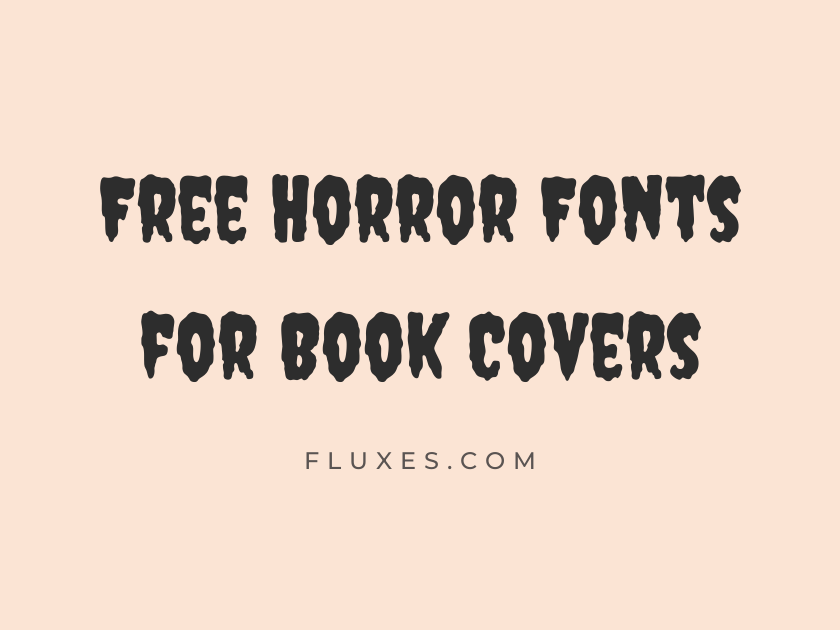
61 Best Free Horror Fonts for Book Covers
Horror publishing runs on typography that does half the storytelling before a reader opens the book. A cover font has to signal dread, decay, gothic romance, or slasher-poster camp in the half-second someone scrolls past it, and that is exactly where free horror fonts on Google Fonts earn their keep. Whether the project calls for a Victorian ghost story, a splatter-pulp paperback, or a found-footage case file, there is a genuinely strong, license-free option waiting below, and every one of them can be downloaded and dropped into a cover mockup in minutes.
This roundup leans into the full range of the genre: dripping horror-movie display faces, blackletter and gothic serifs, distressed pulp and western wood type, creepy handwriting, and a few elegant literary serifs for slow-burn dread rather than gore.
1. Creepster
Something is waiting inside these pages
This is the font most people picture the second someone says “Halloween,” and for good reason: the drippy, slightly melted letterforms read as instant horror-comic shorthand. It works best loud and large on a title, since the dripping details turn to mush at small sizes.
2. Nosifer
The blood never quite washes out
Nosifer
Nosifer takes the dripping-blood concept further than almost anything else on Google Fonts, with double-drip strokes that look genuinely gruesome rather than cartoonish. Save it for short, punchy titles on splatter or slasher covers; a full sentence in this face becomes unreadable fast.
3. Butcherman
He kept the meat hooks sharpened
Rough, hacked edges and uneven strokes give Butcherman the feel of a hand-lettered sign nailed to a slaughterhouse door. It pairs naturally with grungy photo-manipulation covers for backwoods or cannibal horror.
4. Eater
It came back from the grave hungry
Eater
Jagged, torn-looking letters make Eater feel like it survived being chewed on, which is exactly the pitch for zombie and creature-feature titles. Its bite marks and rough edges carry real personality at poster size but get noisy in a paragraph.
5. Vampiro One
She only feeds after midnight
Vampiro One
Rounded yet sinister, Vampiro One has just enough curve to feel playful without losing its bite, making it a solid choice for vampire fiction that leans gothic-romance rather than gore. It sits comfortably on both middle-grade spooky covers and adult supernatural romance.
6. Fascinate
Eyes are watching from the dark
Little dot-eye details hidden in the letterforms give Fascinate an unsettling, always-watching quality that suits psychological horror and creature covers alike. A companion style, Fascinate Inline, offers the same eerie geometry with a hollow, engraved feel for lighter backgrounds.
7. Metal Mania
The band played until the screaming stopped
Metal Mania
Thin, jagged, and unmistakably metal-adjacent, this face suits horror titles with a heavy-music or headbanger subculture angle. It reads best in all caps and short bursts rather than long titles.
8. New Rocker
The crypt door groaned open again
New Rocker
Part blackletter, part biker-jacket patch, New Rocker gives covers a grungy, tattoo-parlor edge that softer gothic serifs cannot match. It is a strong pick for horror with a punk or metal sensibility.
9. UnifrakturMaguntia
Beware the forest after dark
A proper German blackletter revival, this is the font that instantly says “old world curse” or “cursed manuscript” the moment it appears on a cover. It carries centuries of gothic-horror association built right into the letterforms, and it pairs beautifully with a restrained, modern sans for the author name and back-cover copy.
10. UnifrakturCook
The abbey has kept its secret
UnifrakturCook
Heavier and denser than UnifrakturMaguntia, this bold blackletter suits covers that need gothic weight without fine, fragile hairlines. It holds up well on matte paperback stock where thinner blackletter faces can look scratchy.
11. Pirata One
No ship returns from that harbor
Pirata One softens blackletter’s usual severity into something more theatrical, which makes it a favorite for haunted-ship and cursed-treasure horror. It still reads clearly at smaller sizes, unlike many of its gothic cousins.
12. Grenze Gotisch
Sign your name in blood, please
Grenze Gotisch
A variable blackletter that ranges from delicate to genuinely oppressive at its heaviest weights, Grenze Gotisch gives designers unusual flexibility within one gothic family. Pull it toward the heavier end for cover titles and dial it back for interior chapter headers.
13. MedievalSharp
An ancient evil stirs beneath the church
MedievalSharp
Angular and hand-drawn, MedievalSharp feels less funereal than pure blackletter and more like it was inked by a monk with something to hide. It is a dependable choice for dark-fantasy horror crossovers.
14. Metamorphous
The ritual required a full moon
Metamorphous
Metamorphous carries an occult, ceremonial-magic weight thanks to its ornamental serifs and dense strokes. It suits witchcraft and ritual-horror covers particularly well, and it stays legible even at moderate sizes.
15. Almendra
The manor had not been opened in years
Almendra
Almendra’s calligraphic curves give it a candlelit, Victorian-manuscript quality that is more haunted-house than horror-movie poster. It comes with matching small-caps and display styles, so a whole gothic type system can be built from one family.
16. Almendra SC
ENTER AT YOUR OWN RISK
Almendra SC
The small-caps companion to Almendra works beautifully for a restrained gothic subtitle or author credit beneath a louder display title. It keeps the family’s Victorian character without competing for attention.
17. Almendra Display
THE DEAD DO NOT REST QUIETLY
Almendra Display
This is the boldest member of the Almendra trio, with thick, inky strokes suited to a cover’s main title rather than body text. It reads as gothic without tipping into full horror-movie melodrama, useful for literary or Southern Gothic horror.
18. IM Fell English
A confession written by candlelight
IM Fell English
Modeled on 18th-century printing types, IM Fell English brings a genuinely old, slightly worn feel that suits epistolary horror, ghost stories, and anything pitched as a “found manuscript.” The deliberately irregular letterforms mimic the imperfections of metal type.
19. IM Fell English SC
A WARNING TO ALL WHO ENTER
IM Fell English SC
The small-caps cut of IM Fell English is ideal for cover taglines or chapter openers that need old-book gravity without shouting. It pairs naturally with its roman sibling for a cohesive antique-horror look.
20. IM Fell DW Pica
The diary ends mid-sentence
IM Fell DW Pica
Slightly narrower and denser than IM Fell English, this cut suits longer subtitles on period horror covers where space is tight. Its antique character makes it a natural fit for Victorian and Edwardian ghost fiction.
21. IM Fell Double Pica
Something followed her home from the churchyard
IM Fell Double Pica
A sturdier, more substantial member of the IM Fell family, this face holds up well as a secondary display type beneath a louder gothic headline. It never loses the antique-print texture that makes the whole family so useful for period horror.
22. IM Fell Great Primer
Every ghost story begins with a name
IM Fell Great Primer
The most generously spaced of the IM Fell cuts, this one is a strong choice when a cover needs old-book atmosphere at a slightly larger, more legible size. It reads calmer and more literary than the family’s denser siblings.
23. Uncial Antiqua
The monks sealed the tomb at dawn
Uncial Antiqua
Uncial Antiqua’s rounded, illuminated-manuscript letterforms evoke medieval religious horror and cursed-relic plots almost automatically. It is a strong fit for anything involving ancient texts, abbeys, or forbidden scripture.
24. Fondamento
She copied the spell exactly as written
Fondamento
This handwritten blackletter hybrid feels like it was scratched into a spellbook rather than typeset, which makes it useful for grimoire-style horror covers and interior ephemera. It is legible enough for short passages, unlike heavier gothic display faces.
25. Cinzel Decorative
THE CROWN OF THE DAMNED
Ornamented, carved-in-stone capitals give Cinzel Decorative a ceremonial, ancient-curse quality that suits horror with a classical or archaeological angle. It is a title font first and foremost; save the plain Cinzel below for anything that needs to run longer.
26. Cinzel
An old evil, patiently waiting
The restrained sibling of Cinzel Decorative, this Roman-inspired serif brings gravity and a sense of ancient dread without the flourishes. It pairs elegantly with Cormorant Garamond below for a full literary-horror type system.
27. Miltonian
Carved above the mausoleum door
Miltonian
Engraved, Victorian-stencil letterforms make Miltonian feel like it belongs on a cemetery gate rather than a screen, which is precisely the appeal for gothic horror titling. It has a formal, almost governmental weight that suits asylum and institution-horror covers too.
28. Miltonian Tattoo
Marked forever by what she saw
Miltonian Tattoo
A rougher, more worn cousin of Miltonian, this cut adds texture that suggests age and damage rather than clean engraving. It works well on covers built around distressed photography or scratched film textures.
29. Special Elite
Case file 13: do not open
Every letter looks like it was struck from a manual typewriter with a worn ribbon, which makes Special Elite the obvious choice for found-footage, case-file, and epistolary horror. It also reads cleanly at body-text sizes, so it can carry cover copy as well as the title.
30. Vast Shadow
Its shadow fell across the porch
The name says it all: built-in shading gives this slab serif a dramatic, dimensional presence without any extra effects added in design software. It suits bold, single-word horror titles that need to dominate a cover.
31. Rye
The town kept its darkest secret
A western-inspired slab with just enough roughness to feel weathered rather than clean, Rye is a natural pick for backwoods, frontier, or folk-horror covers. It carries a wanted-poster energy that suits horror with a rural American setting.
32. Sancreek
Nobody leaves this town alive
Sancreek’s chiseled wood-type look brings the same frontier grit as Rye but with heavier, blockier strokes. It reads as tough and weathered rather than delicate, ideal for horror westerns and desert-set slashers.
33. Frijole
The carnival never really closed
Frijole
Chunky and slightly cartoonish, Frijole has a hand-carved circus-sign quality that suits creepy-carnival and killer-clown horror. It leans more playful than menacing, so it works best paired with unsettling imagery to carry the tone.
34. Jolly Lodger
Step right up, if you dare
Jolly Lodger
This Victorian-fairground display face brings sideshow theatrics to a cover, useful for horror built around traveling carnivals, freak shows, or cursed amusement parks. Its exaggerated flourishes make it a title-only font rather than one for longer copy.
35. Ewert
Torn from the pages of her diary
Ewert
Bold, rounded letterforms with a slightly jagged, torn-paper edge give Ewert a scrapbook-horror feel that suits diary and journal-style covers. It stays surprisingly legible for a face this stylized.
36. Griffy
The fortune teller warned her twice
Griffy
Quirky, old-fashioned, and a little theatrical, Griffy suits horror with a vintage carnival or Victorian-oddity flavor rather than anything overtly bloody. It is best used sparingly, as a subtitle or accent rather than a dominant headline.
37. Astloch
Carved from the same rotten wood
Astloch
Rough woodblock-print letterforms make Astloch feel gouged rather than typeset, a strong match for folk-horror covers built around cursed forests or rural rituals. Its texture reads best at larger sizes where the roughness stays intentional rather than muddy.
38. Piedra
Her name, worn off the headstone
Piedra
Piedra mimics rough, hand-chiseled stone lettering, making it an obvious pick for cemetery, tombstone, or crypt-themed cover elements. It works well as a supporting graphic detail as much as a full title face.
39. Chonburi
The lake keeps what it takes
Chonburi
Thick, rounded, and slightly ominous, Chonburi has an unexpected heaviness that lets it double as a horror display face despite its origins outside the genre. It reads well at both poster and thumbnail sizes, a rarer trait among the heavier faces on this list.
40. Trade Winds
The ghost ship sails on schedule
Trade Winds
A swashbuckling display face with just enough irregularity to feel eerie, Trade Winds suits ghost-ship, cursed-treasure, and maritime horror covers. It leans adventurous rather than gruesome, which makes it useful for horror with a pulpy, adventure-serial tone.
41. Lugrasimo
A curse, whispered backward
Lugrasimo
Loose, slightly wobbly script strokes give Lugrasimo a sense of something not quite right, useful for spellbook covers or horror aimed at younger readers who want spooky without gore. It should stay short on a cover; its personality overwhelms longer lines.
42. Kranky
Mommy says the dolls don't move
Kranky
Deliberately shaky and childlike, Kranky is one of the more effective ways to signal “creepy child” horror without a single illustration. It works especially well for covers built around haunted nurseries, dolls, or possessed-kid tropes.
43. Diplomata
Property of the county asylum
Diplomata
Stamped, official-looking letterforms give Diplomata a bureaucratic coldness that suits horror built around institutions, asylums, or government cover-ups. It reads best as a small stamped detail rather than a full cover title.
44. Diplomata SC
CLASSIFIED, DO NOT DISTRIBUTE
Diplomata SC
The small-caps cut of Diplomata carries the same stamped, official menace in a tighter, more compact form, useful for cover taglines that need to feel like redacted documents. It suits conspiracy-adjacent horror especially well.
45. Wallpoet
Signal lost. Something is inside
Stenciled and mechanical, Wallpoet brings a cold, institutional dread suited to techno-horror, haunted-technology, or sci-fi horror crossovers. It is a title font through and through, best kept short and all caps.
46. Bigshot One
THE THING IN THE BASEMENT
Bigshot One
Bold, blocky, and comic-book loud, Bigshot One suits pulp horror paperbacks that want a retro drive-in-poster energy. It has real punch at large sizes but loses definition quickly if squeezed onto a thumbnail.
47. Fruktur
The grimoire had no author
Fruktur
A slightly more ornamental take on blackletter, Fruktur adds decorative flicks to its gothic bones, useful when a cover wants old-world menace with a touch more flourish than UnifrakturMaguntia offers. It suits witchcraft and cursed-object horror.
48. Irish Grover
The clown remembers your name
Irish Grover
Rounded and unexpectedly bouncy, Irish Grover reads more circus-poster than crypt at first glance, which is exactly why it works for killer-clown and creepy-carnival horror that leans on contrast between cheerful type and disturbing subject matter.
49. Rubik Wet Paint
Fresh blood on the wallpaper
Rubik Wet Paint
This dripping, saturated display style looks like a title painted in something that has not quite dried, an easy shorthand for slasher and body-horror covers. Keep it to a word or two; the drips get visually noisy in longer lines.
• Language support: Latin, Latin Extended, Cyrillic, Cyrillic Extended, Hebrew
50. Rubik Dirt
Grime coated every surface
Rubik Dirt
Rubik Dirt adds a layer of grungy texture to an otherwise clean geometric letterform, useful for horror covers that want a contaminated, decayed feel without going fully gothic. It pairs well with desaturated, grainy cover photography.
• Language support: Latin, Latin Extended, Cyrillic, Cyrillic Extended, Hebrew
51. Rubik Distressed
Whatever it was, it's gone now
Rubik Distressed
A subtler, more worn take on the grunge-Rubik family, this style suggests age and damage without tipping into full gore-drip territory. It works nicely for slow-burn horror and abandoned-place covers.
• Language support: Latin, Latin Extended, Cyrillic, Cyrillic Extended, Hebrew
52. Rubik Glitch
Do not trust what you see
Rubik Glitch
Corrupted, broken-pixel letterforms make Rubik Glitch a strong match for techno-horror, haunted-media, and analog-horror covers built around VHS tapes or broken signals. It is unmistakably digital dread rather than gothic dread.
• Language support: Latin, Latin Extended, Cyrillic, Cyrillic Extended, Hebrew
53. Rubik Moonrocks
Splattered across the mirror
Rubik Moonrocks
Ink-blot, spattered edges give this style a messy, organic horror quality somewhere between blood spray and mold growth. It suits body-horror and creature-feature covers that want texture over polish.
• Language support: Latin, Latin Extended, Cyrillic, Cyrillic Extended, Hebrew
54. Rubik Beastly
Something feral got inside
Rubik Beastly
Irregular, gnawed-looking strokes give Rubik Beastly a creature-made-this quality, a good fit for werewolf, cryptid, or monster-attack horror titles. Its rough edges read best bold and large.
• Language support: Latin, Latin Extended, Cyrillic, Cyrillic Extended, Hebrew
55. Rubik Burned
Only ash remained by morning
Rubik Burned
Charred, scorched letterforms make Rubik Burned an obvious pick for arson, wildfire, or cursed-fire horror plots. It carries destruction built directly into the type rather than relying on cover imagery to do that work.
• Language support: Latin, Latin Extended, Cyrillic, Cyrillic Extended, Hebrew
56. Rubik Puddles
Something dripped through the ceiling
Rubik Puddles
Soft, pooling edges give this style a liquid, seeping quality distinct from the sharper drips of Rubik Wet Paint, useful for slow-horror covers about water, mold, or decay rather than outright gore.
• Language support: Latin, Latin Extended, Cyrillic, Cyrillic Extended, Hebrew
57. Kolker Brush
if you find this, run
Kolker Brush
Hurried, uneven brush strokes make Kolker Brush read like a note scrawled in a panic, ideal for ransom-note or diary-fragment cover treatments. It works best lowercase and understated, as a quiet counterpoint to a louder display title elsewhere on the cover.
58. Cormorant Garamond
What waits behind the locked door
An elegant, high-contrast serif with roots in classic book typography, Cormorant Garamond brings literary restraint to horror covers that trade jump scares for dread. It is equally at home as body copy inside the book, giving a cover and interior a matched, old-library feel.
59. Cormorant SC
A HOUSE WITH NO MIRRORS
Cormorant SC
The small-caps cut of Cormorant Garamond adds formal, almost funereal elegance to a title or subtitle, suited to Southern Gothic and literary horror that leans on atmosphere over shock. It reads as refined rather than frightening on its own, so it earns its keep paired with unsettling imagery.
60. Prata
She never spoke of that winter
Prata’s tall, graceful serifs give it a quiet menace better suited to psychological horror and gothic romance than to anything overtly violent. It photographs beautifully on minimal, moody covers built around negative space.
61. Marcellus SC
THE ESTATE HELD ITS SECRETS
Marcellus SC
Formal small capitals with old-world polish make Marcellus SC a strong choice for period horror set in manors, estates, or aristocratic families with something to hide. It works well as a restrained subtitle beneath a heavier gothic display face.
Pairing and setup tips for horror book covers
Contrast is the fastest way to make a horror cover feel intentional rather than cluttered. Pair one loud, high-personality display font, such as a dripping or blackletter style, with a plain, highly legible serif or sans for the author name and back-cover copy.
Distressed and dripping display fonts almost always need generous size and spacing to stay readable; test them at thumbnail size early, since that is how most readers will actually encounter the cover online.
Gothic serifs like Cormorant Garamond, Prata, and the IM Fell family double nicely as interior chapter headings, which helps a cover and interior layout feel like one cohesive design.
Final thoughts
Horror rewards typography that commits to a mood, whether that mood is dripping dread, candlelit gothic unease, or the flat institutional cold of a case file. Every option above is free to download from Google Fonts and ready to test against real cover imagery, so the fastest way forward is simply trying a few side by side and seeing which one makes the hair stand up.